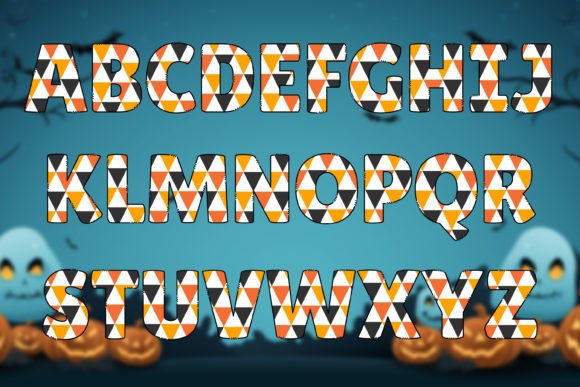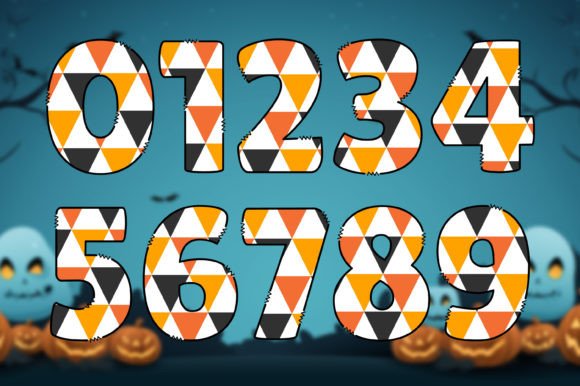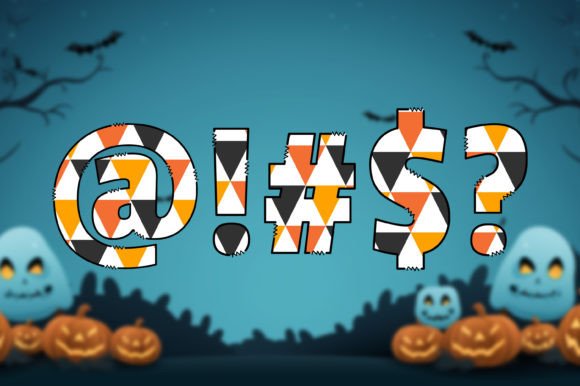
Candy Corn Font: A Sweet Addition to Your Design Projects
The Candy Corn Font is a delightful and playful typeface that has become a staple in the world of design. Its whimsical and colorful nature makes it an ideal choice for projects that require a touch of fun and creativity. In this article, we’ll explore the characteristics of the Candy Corn Font, its uses, and benefits, as well as provide tips on how to incorporate it into your design projects.
What is Candy Corn Font?
The Candy Corn Font is a type of font that is inspired by the classic Halloween candy, candy corn. It is characterized by its bold, playful, and colorful design, which features irregular shapes and a childlike feel. The font is often used in designs that aim to convey a playful or artistic feel, such as children’s books, posters, invitations, greeting cards, and more.
Uses of Candy Corn Font
These fonts are often used in designs that aim to convey a playful or artistic feel, such as:
- Children’s books: Fonts that are whimsical, colorful, and easy to read are perfect for creating an engaging reading experience for young audiences.
- Posters: A playful font like Candy Corn can add a touch of fun and personality to a poster, making it stand out from the crowd.
- Invitations: Whether it’s a birthday party or a Halloween gathering, a Candy Corn Font can add a playful and festive touch to your invitations.
- Greeting cards: A sweet and playful font like Candy Corn is perfect for creating fun and colorful greeting cards for special occasions.
Benefits of Using Candy Corn Font
The Candy Corn Font offers several benefits, including:
- Uniqueness: The Candy Corn Font is a unique and distinctive typeface that can help your designs stand out from the crowd.
- Playfulness: The font’s playful and whimsical nature makes it perfect for designs that require a touch of fun and creativity.
- Versatility: The Candy Corn Font can be used in a variety of design projects, from children’s books to posters and invitations.
Tips for Using Candy Corn Font
Here are some tips for incorporating the Candy Corn Font into your design projects:
- Pair it with a simple font: To avoid overwhelming the reader, pair the Candy Corn Font with a simple font for body text.
- Use it sparingly: While the Candy Corn Font is playful and fun, it can be overwhelming if used excessively. Use it sparingly to add a touch of personality to your design.
- Experiment with colors: The Candy Corn Font is perfect for experimenting with bright and bold colors. Try pairing it with different colors to create a unique and eye-catching design.
How to Choose the Right Candy Corn Font
With so many Candy Corn Fonts available, choosing the right one can be overwhelming. Here are some tips to help you choose the right font:
- Consider the occasion: Choose a font that is suitable for the occasion. For example, a Halloween-themed font may not be suitable for a birthday party invitation.
- Think about the audience: Consider the age and interests of your audience. A children’s book may require a font that is more playful and whimsical, while a poster for a adult audience may require a font that is more sophisticated.
- Look for versatility: Choose a font that is versatile and can be used in different design projects.
| Font Name | Candy Corn Font |
| Author | Veil |
The Candy Corn Font is a sweet and playful typeface that can add a touch of fun and creativity to your design projects. With its unique and whimsical nature, it’s perfect for designs that require a playful or artistic feel. By following the tips outlined in this article, you can incorporate the Candy Corn Font into your designs and create engaging and eye-catching projects that will delight your audience.